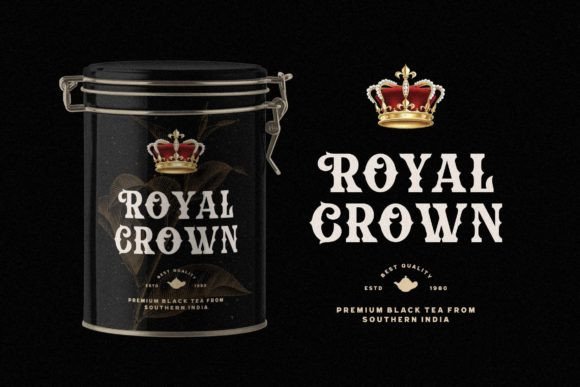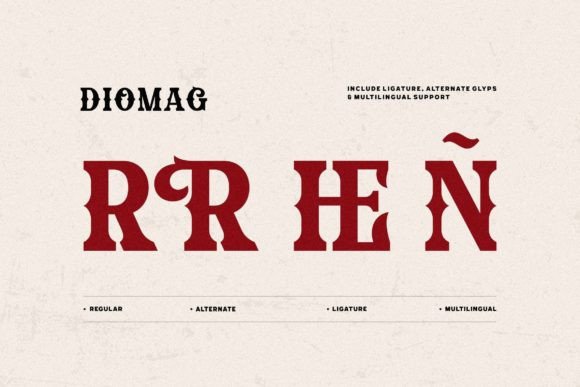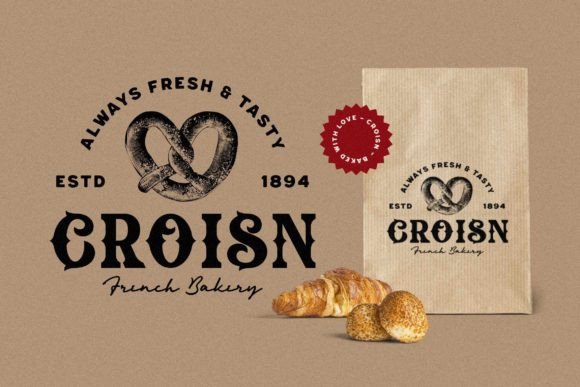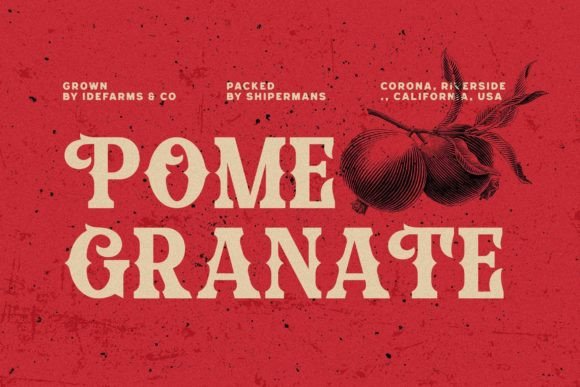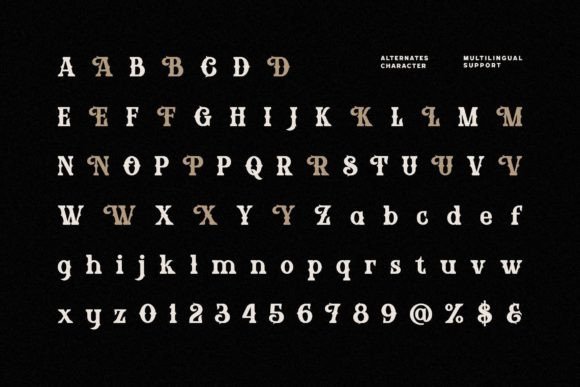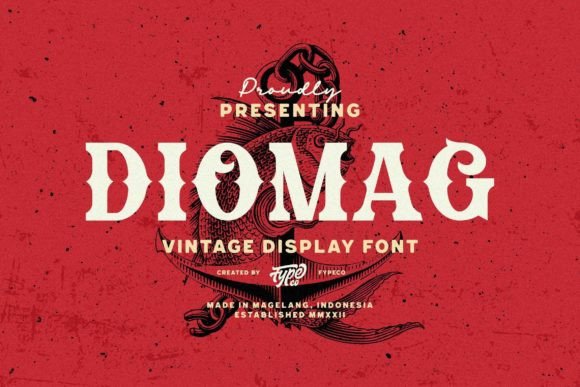
Introducing Diomag Font: A Timeless Vintage Display Font
In the world of typography, fonts play a crucial role in conveying the tone and aesthetic of a design. For designers and crafters looking for a font that exudes a sense of nostalgia and sophistication, Diomag Font is an excellent choice. Inspired by classic labels, Diomag is a vintage display font that has been carefully crafted to bring a touch of retro charm to any design project.
The Retro Charm of Diomag Font
Diomag Font is a bold and eye-catching font that is reminiscent of classic labels from the past. Its vintage appeal is undeniable, making it an ideal choice for designers who want to add a touch of nostalgia to their designs. However, Diomag is not just limited to vintage designs. Its versatility and timeless appeal make it suitable for modern designs such as magazine headlines, advertisement headlines, and more.
Key Features of Diomag Font
- Bold Body: Diomag Font features a bold body that makes a strong impression on the viewer. Its sturdy and confident appearance makes it perfect for headlines, titles, and other display text.
- Retro Appeal: Diomag’s vintage inspiration gives it a unique and distinctive look that sets it apart from other fonts.
- Versatility: Despite its retro appeal, Diomag Font is surprisingly versatile and can be used in a variety of design contexts, from vintage-inspired designs to modern and sleek projects.
Use Cases for Diomag Font
Diomag Font is a versatile font that can be used in a variety of design projects, including:
- Vintage Designs: Add a touch of nostalgia to your vintage-inspired designs with Diomag Font.
- Magazine Headlines: Use Diomag Font to create bold and eye-catching headlines for your magazine or publication.
- Advertisement Headlines: Make a strong impression with Diomag Font’s bold and confident appearance.
- Branding and Packaging: Use Diomag Font to add a touch of vintage charm to your brand’s packaging and branding materials.
Why Choose Diomag Font?
With so many fonts available, why choose Diomag Font? Here are just a few reasons why designers and crafters love Diomag:
- Unique and Distinctive: Diomag Font’s vintage inspiration gives it a unique and distinctive look that sets it apart from other fonts.
- High-Quality Design: Diomag Font has been carefully crafted to ensure that it is of the highest quality, with clean lines and precise curves.
- Easy to Read: Despite its bold appearance, Diomag Font is surprisingly easy to read, making it perfect for use in a variety of design contexts.
In conclusion, Diomag Font is a timeless vintage display font that is perfect for designers and crafters looking to add a touch of retro charm to their designs. With its bold body, retro appeal, and versatility, Diomag Font is an excellent choice for a wide range of design projects. Whether you’re creating vintage-inspired designs or modern and sleek projects, Diomag Font is sure to make a strong impression.